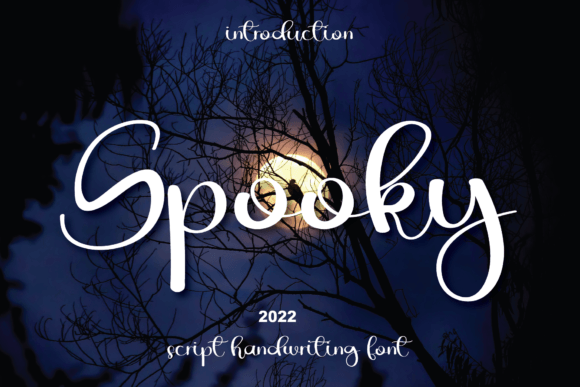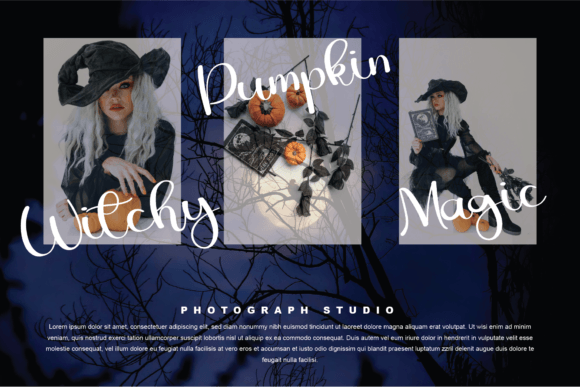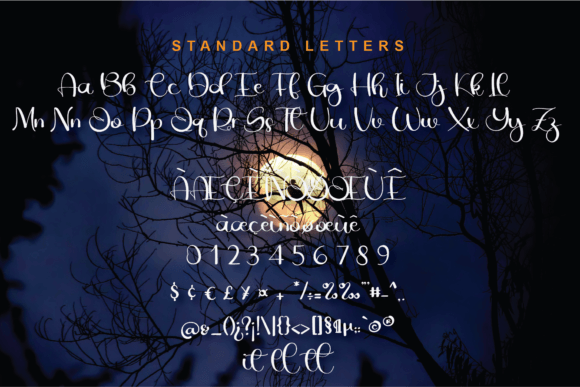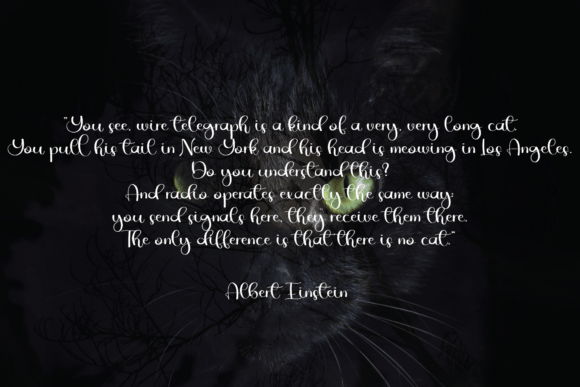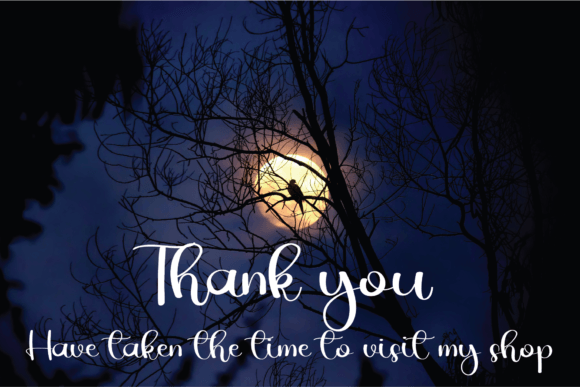
Spooky Font
About Spooky Font
“Spooky” is an elegant handwritten font that carries a modern impression. It exudes a stunning visual appeal, particularly when applied to wedding invitations, thank you cards, greeting cards, business cards, logos, products, advertisements, quotes, and any other designs that require a touch of handwritten elegance.
The font’s elegance is complemented by modern elements, making it versatile for a wide range of design applications. Whether you’re working on formal invitations or contemporary branding, “Spooky” aims to deliver a refined and stylish look.
One of the standout features of “Spooky” is its varied and interesting hand strokes, showcasing a dynamic range of lines, fields, and stunning alternates. This diversity in strokes adds character and uniqueness to the font, making it visually engaging.
Utilizing “Spooky” in your designs allows you to infuse a handwritten touch that stands out. The elegant yet modern aesthetic of the font makes it suitable for projects where a balance between classic and contemporary is desired.
In summary, “Spooky” is an elegant handwritten font with a modern twist, making it a perfect choice for a variety of design purposes. Its stunning alternates and varied hand strokes contribute to its visual appeal, allowing it to shine in formal and modern design contexts alike.